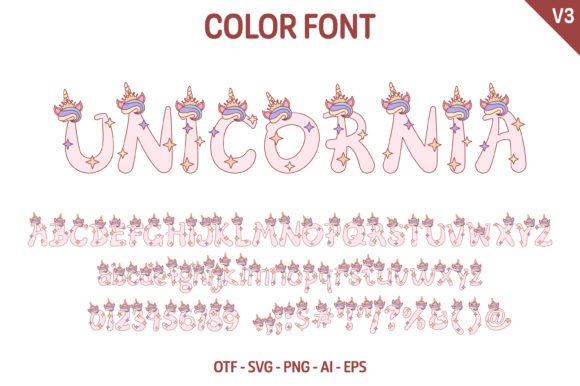
Step into the world of magic and enchantment with Unicornia Font, a playful and whimsical font that dances with the essence of unicorns. Its letterforms, like graceful ballet dancers, curve and flow with an elegant charm, creating a visual symphony that captivates the senses. Each character is adorned with adorable unicorn horn details, adding a touch of magic to every word you write. The rounded letters carry a hint of fantasy, making Unicornia Font the perfect choice for projects seeking a captivating, fairy-tale charm.
With Unicornia Font, you can bring your creative visions to life. Whether you're designing children's books or enchanting invitations, crafting whimsical greeting cards or creating magical logos, this font will infuse your designs with a touch of magic. It's a font that captures the imagination, inspiring a sense of wonder and joy in the hearts of young and old alike.
But Unicornia Font is more than just a pretty face. It's also incredibly versatile, adapting gracefully to various design styles and themes. Its vibrant colors blend seamlessly with red backgrounds, creating a stunning visual impact that's sure to captivate your audience. Unleash your creativity and watch Unicornia Font transform your designs into enchanting masterpieces.